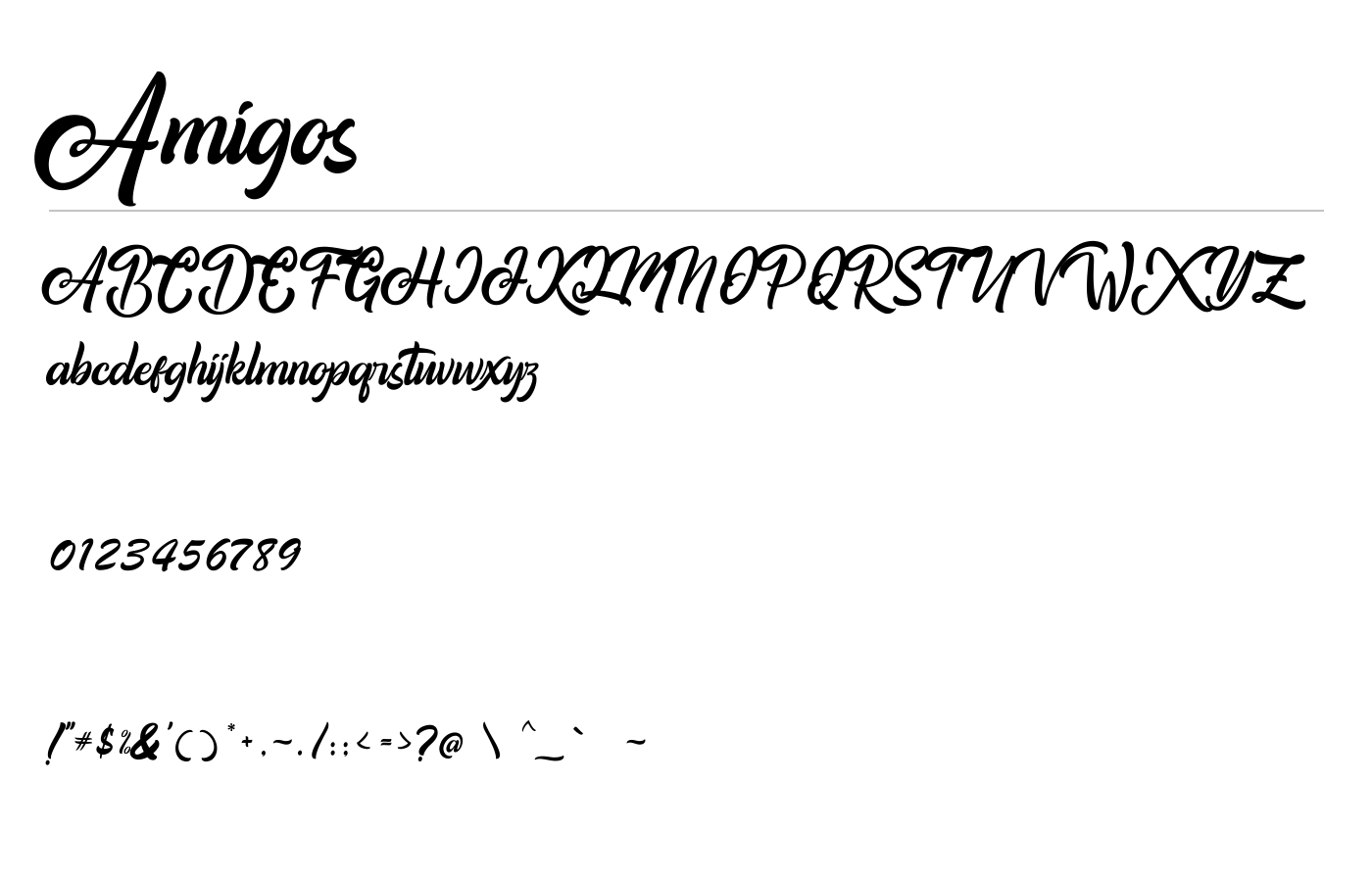
Amigos is a lively and elegant script font characterized by smooth, flowing strokes and expressive curves that give it a friendly yet refined feel. Its medium weight and slightly condensed letterforms make it ideal for adding a personal, handcrafted touch to branding, invitations, and headlines where warmth and style are key. This font works beautifully in creative projects that seek a balance between sophistication and approachability.
Amigos Font
About Amigos Font